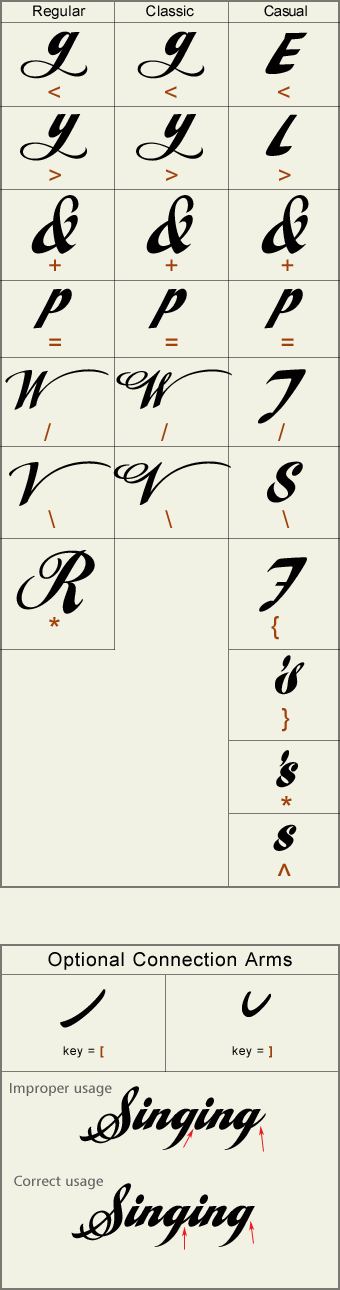
3 essential scripts that are neither too dainty or formal, yet retain an air of sophistication. Wide strokes allow for many creative possibilities. Lowercase letters are identical in all versions. You might also like Red Sable Script & Flash Script.